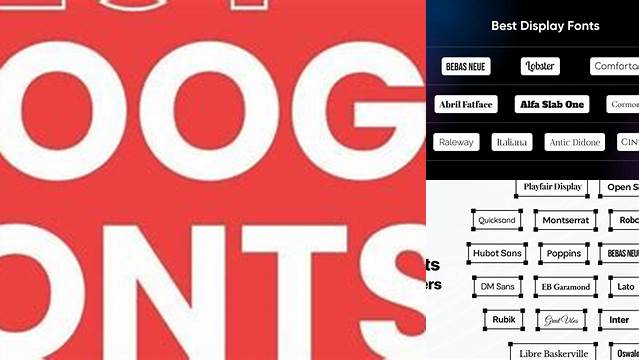
Top Google Fonts For Websites In 2026
Hey guys! Choosing the right fonts for your website is super important. The right fonts can make your site look professional, readable, and keep visitors engaged. In this article, we're diving into the best Google Fonts for websites in 2026. Why Google Fonts, you ask? Well, they’re free, easy to use, and there’s a massive library to pick from. So, let's get started and find the perfect fonts to make your website shine!
When it comes to website design, fonts play a crucial role in creating an engaging and user-friendly experience. Choosing the right typography can significantly impact readability, visual appeal, and overall brand perception. As we look ahead to 2026, it's essential to stay updated with the latest trends and best practices in font selection. Google Fonts offers a vast library of high-quality, open-source fonts that are easy to implement and free to use, making them an excellent choice for web designers and developers. In this article, we'll explore some of the best Google Fonts for websites in 2026, considering factors like readability, versatility, and modern design aesthetics. By selecting the right fonts, you can ensure your website not only looks great but also effectively communicates your message to your audience. Let's dive into the top contenders that will help you make a lasting impression in the digital landscape.
Serif fonts have those little decorative strokes at the ends of the letters, giving them a classic and elegant vibe. They're often used for headlines and body text, making your website look polished and professional. Let's explore some top serif fonts from Google Fonts that will still be rocking in 2026.
Serif fonts are characterized by the small decorative strokes, or serifs, at the end of each character. These fonts often convey a sense of tradition, elegance, and authority, making them a popular choice for formal websites, blogs, and publications. Serif fonts are generally considered more readable in print, and while they may not always be the top choice for on-screen body text, certain serif fonts from Google Fonts offer excellent legibility and visual appeal for web design. When selecting a serif font, consider the overall tone and style of your website. A classic serif can add a touch of sophistication, while a more modern serif can bring a contemporary feel. Pay attention to the font's weight and spacing to ensure it remains readable across different devices and screen sizes. In 2026, serif fonts continue to be a staple in web design, offering a timeless aesthetic that can enhance the user experience and reinforce brand identity. The key is to choose a serif font that balances tradition with modernity, providing both visual interest and readability.
Playfair Display
Playfair Display is a beautiful serif font that’s perfect for headlines. It has a high contrast and elegant design, making it great for titles and headings where you want to make a statement. It’s a bit too fancy for body text, but for those attention-grabbing titles, Playfair Display is a winner!
Playfair Display is an exquisite serif font that exudes elegance and sophistication. Its high contrast and refined letterforms make it an ideal choice for headlines and titles where you want to create a strong visual impact. Designed with classical influences, Playfair Display adds a touch of timeless beauty to any website. While it may be too ornate for extensive body text, its bold presence makes it perfect for drawing attention to key sections and headings. This font is particularly effective for websites in the fashion, lifestyle, and luxury sectors, where aesthetics play a crucial role. The delicate serifs and varying stroke weights give Playfair Display a distinct personality that can elevate the overall design. When using Playfair Display, consider pairing it with a simpler sans-serif font for the body text to ensure readability and balance. In 2026, Playfair Display remains a top choice for designers looking to add a touch of class and sophistication to their web projects. Its timeless appeal and versatility make it a valuable asset in creating memorable and visually stunning websites.
Merriweather
Merriweather is another fantastic serif font, but this one is designed specifically for readability on screens. It has a slightly condensed letterform and sturdy serifs, making it super easy on the eyes for long blocks of text. If you need a reliable body font, Merriweather is your go-to!
Merriweather is a highly regarded serif font specifically designed for on-screen readability. Its slightly condensed letterforms and robust serifs make it an excellent choice for body text, ensuring a comfortable reading experience even for long passages. The font's balanced design and clear letter shapes contribute to its legibility, making it suitable for various types of websites, including blogs, news platforms, and academic sites. Merriweather's versatility extends to its ability to pair well with a wide range of sans-serif fonts for headings, providing designers with flexibility in creating visually appealing typography. Its open and inviting character makes it a reliable option for conveying information clearly and effectively. In 2026, Merriweather continues to be a favored font for its practicality and aesthetic appeal. By choosing Merriweather, you can enhance the readability of your website, keeping visitors engaged and focused on your content. Its enduring popularity underscores its importance in modern web design, offering a perfect blend of functionality and style.
Arvo
Arvo is a geometric slab-serif font that brings a touch of modernity to the classic serif style. It’s bold and sturdy, making it great for headlines and shorter blocks of text. Arvo gives off a strong and confident vibe, perfect for websites that want to make an impact.
Arvo is a distinctive geometric slab-serif font that brings a modern twist to traditional serif typography. Its bold and sturdy letterforms make it an excellent choice for headlines, titles, and shorter blocks of text where you want to make a strong statement. The geometric construction of Arvo gives it a clean and contemporary feel, while the slab serifs add a touch of character and visual interest. This font is particularly effective for websites that aim to project a sense of confidence and reliability. Arvo's strong presence makes it suitable for brands in the technology, finance, and corporate sectors. Its unique style also works well for design-focused websites that want to stand out. In 2026, Arvo remains a compelling option for designers seeking a typeface that balances modernity with classic elements. When using Arvo, consider pairing it with a simpler sans-serif font for body text to maintain readability and visual harmony. Its versatility and distinctive appearance make it a valuable asset in creating memorable and impactful designs.
Sans-serif fonts are the cool, modern cousins of serif fonts. They don’t have those little strokes at the ends, giving them a clean and minimalist look. Sans-serif fonts are super popular for websites because they’re easy to read on screens and give a contemporary feel. Let’s check out some of the best sans-serif options for 2026.
Sans-serif fonts are characterized by their clean, minimalist design, lacking the decorative strokes or serifs found in serif fonts. This style gives them a modern and approachable feel, making them a popular choice for websites and digital interfaces. Sans-serif fonts are generally considered highly readable on screens, thanks to their clear and simple letterforms. They are versatile and can be used for both headings and body text, providing a consistent and contemporary look across your website. When selecting a sans-serif font, consider the overall tone and style you want to convey. Some sans-serif fonts are more geometric and structured, while others have a softer, more humanist feel. The right sans-serif font can enhance the user experience by making your content easily accessible and visually appealing. In 2026, sans-serif fonts continue to dominate web design due to their clean aesthetic and excellent legibility. Choosing a well-designed sans-serif font can help your website look modern, professional, and user-friendly.
In conclusion, selecting the best Google Fonts for your website in 2026 requires a thoughtful approach that balances aesthetics with functionality. By prioritizing readability, aligning your font choices with your brand identity, and carefully pairing different fonts, you can create a visually appealing and user-friendly online presence. Remember to test your font selections on various devices to ensure a consistent experience for all visitors. Google Fonts offers a vast library of high-quality typefaces, providing ample options to suit any design style. By staying informed about the latest trends and best practices in typography, you can ensure your website looks modern and professional. Investing time in selecting the right fonts will pay off by enhancing your website's visual appeal, improving user engagement, and reinforcing your brand's message. Happy designing, and may your website shine in 2026!